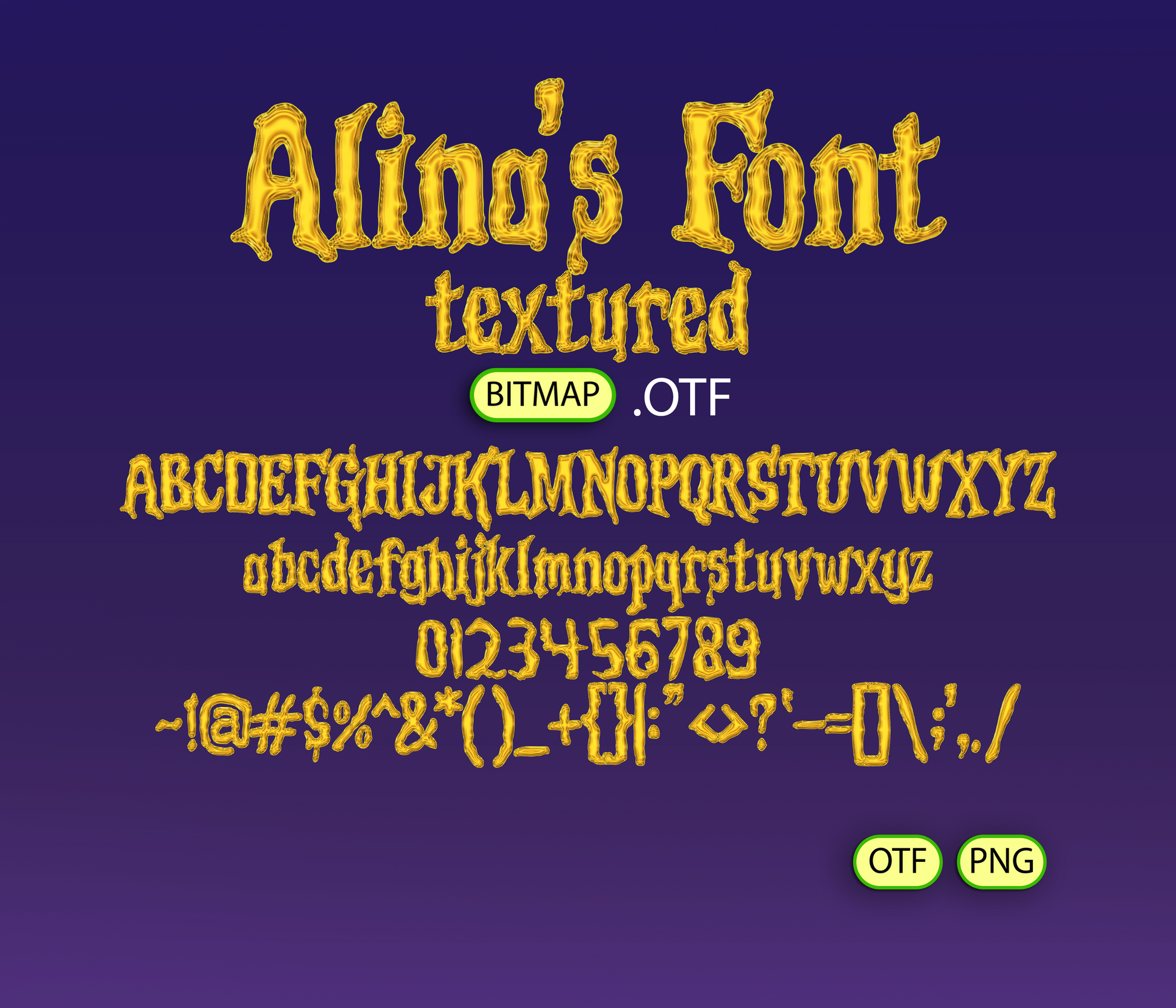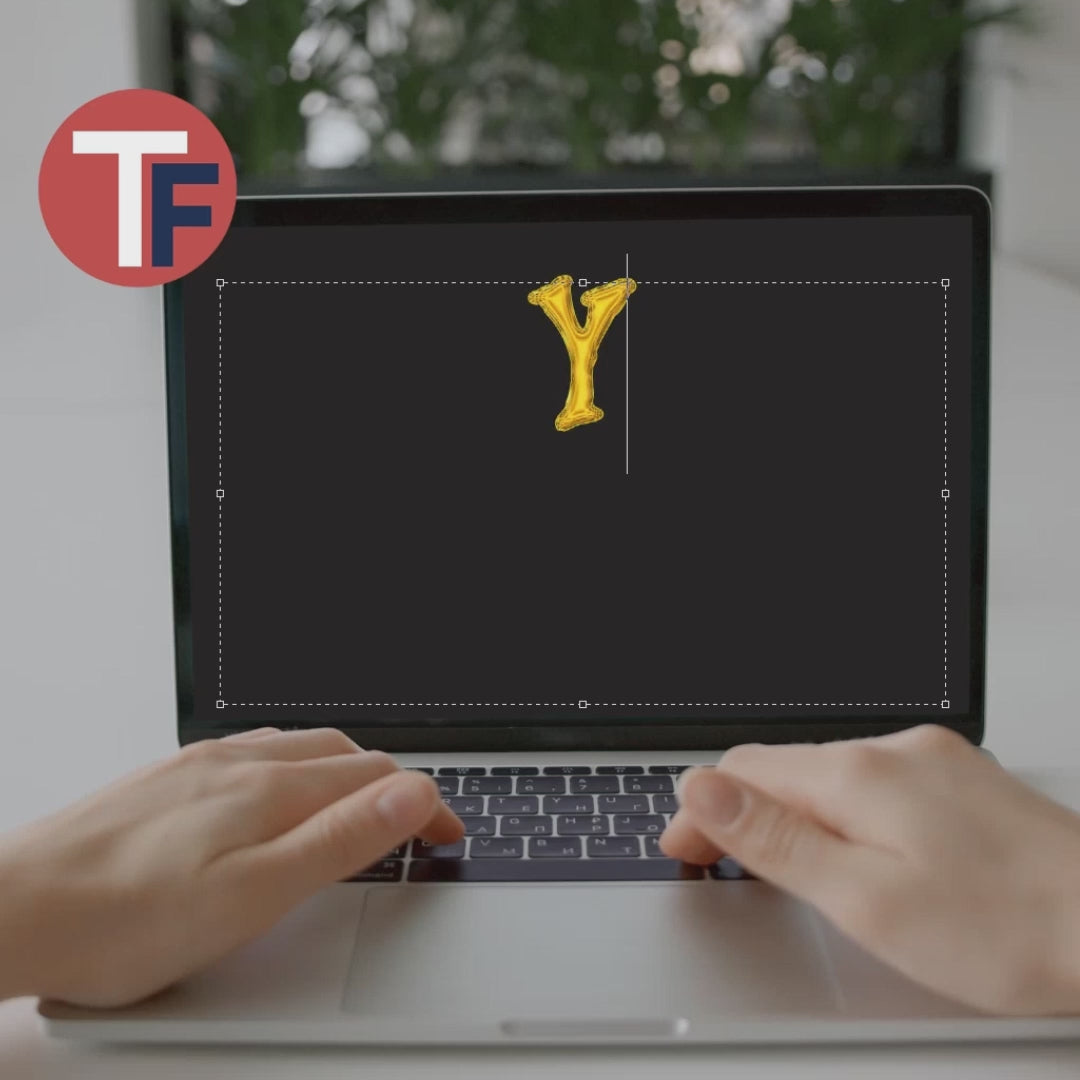
Spine-Chiller Scare Font Textured
Step into the eerie world of children's horror with our specially crafted font. This typeface captures the essence of a beloved book series known for its spooky tales and thrilling adventures. Perfect for Halloween enthusiasts, young readers, and fans of kid-friendly frights, this font brings the chilling, suspenseful spirit of nighttime stories to your creative projects.
What font is the Spine-Chiller Scare font?
Imagine a typeface that embodies the creepy and mysterious nature of the book series - oozing, dripping, and tingling with supernatural energy. Our font features unsettling, slimy letterforms that mirror the spine-tingling covers of the famous novels, complete with subtle hints of monster-like elements. It includes a comprehensive character set with alphabets, numbers, and special symbols, offering a versatile solution for various spooky design needs.
What You Can Do With Spine-Chiller Scare Textured Font
- Textured and Non-Textured Variants: Available in both a slimy, dripping style reminiscent of monster goo, and a clean version for versatile use
- Extensive Character Set: Offers a wide range of characters for complete design flexibility
The Spine-Chiller Scare font is more than just a typeface; it's a tribute to the enduring legacy of kid-friendly horror that has kept readers sleeping with the lights on for generations.